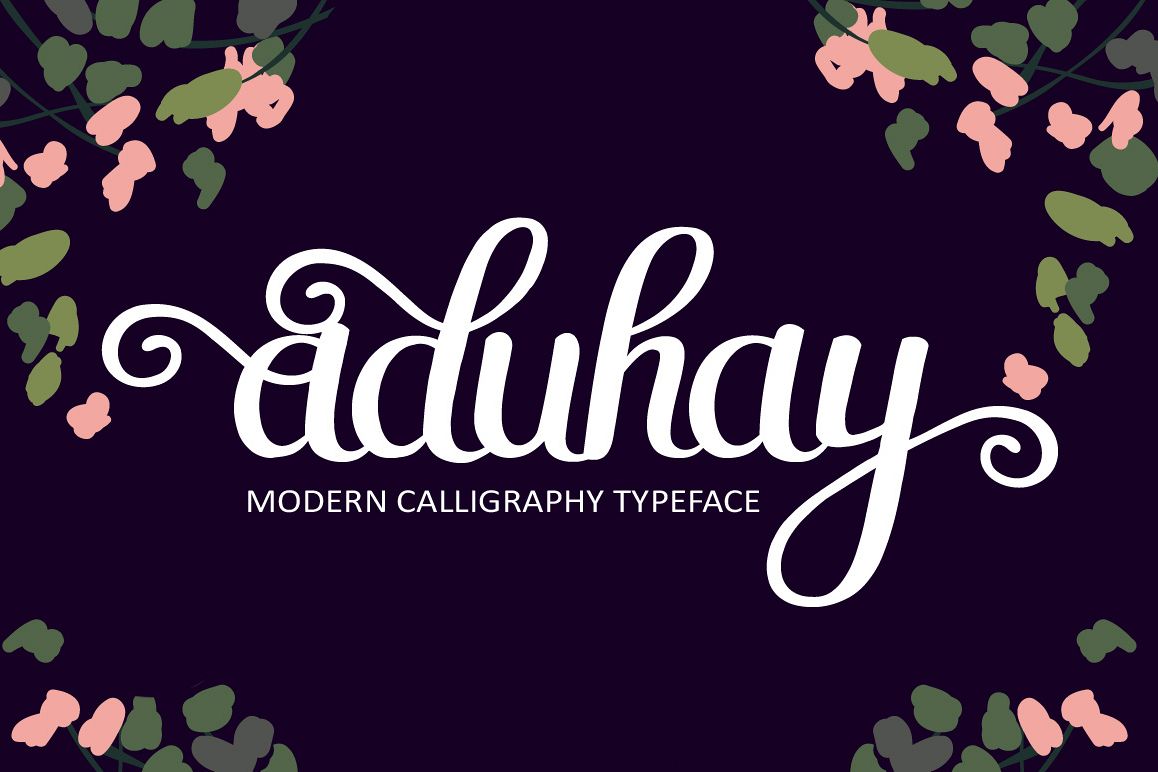
Aduhay Script
Aduhay is a hand made painted typeface with a customible style it's perfect for creating a wedding invitation (Initial), a headline, logotype, and t-shirt/ apparel design.The characteristic of this font is flow with the unique handmade touch characteristic.